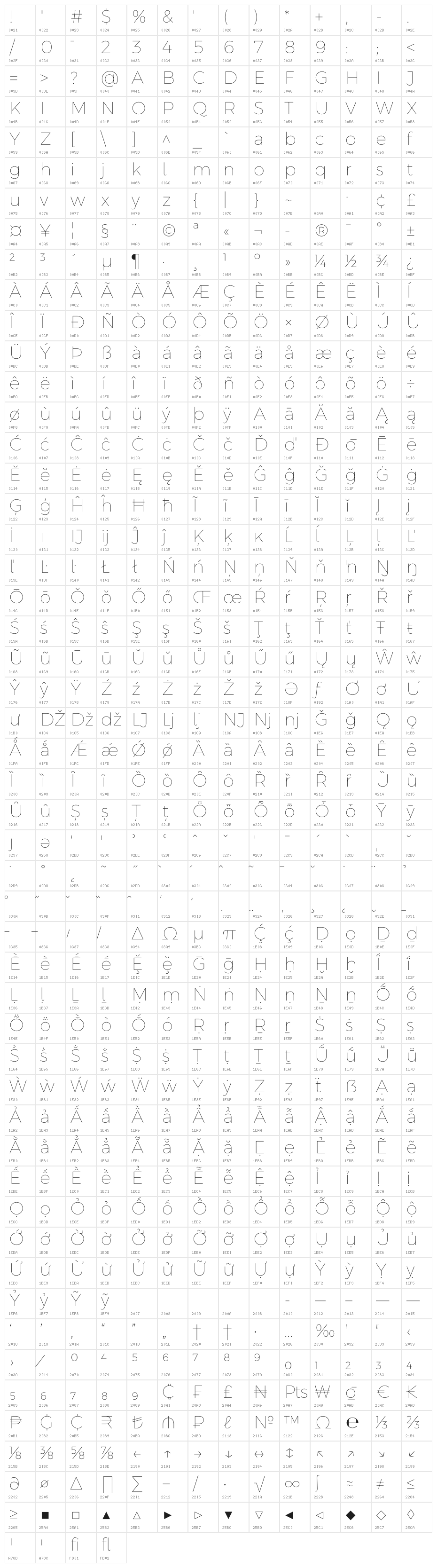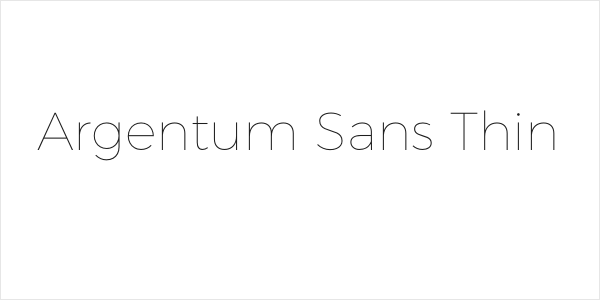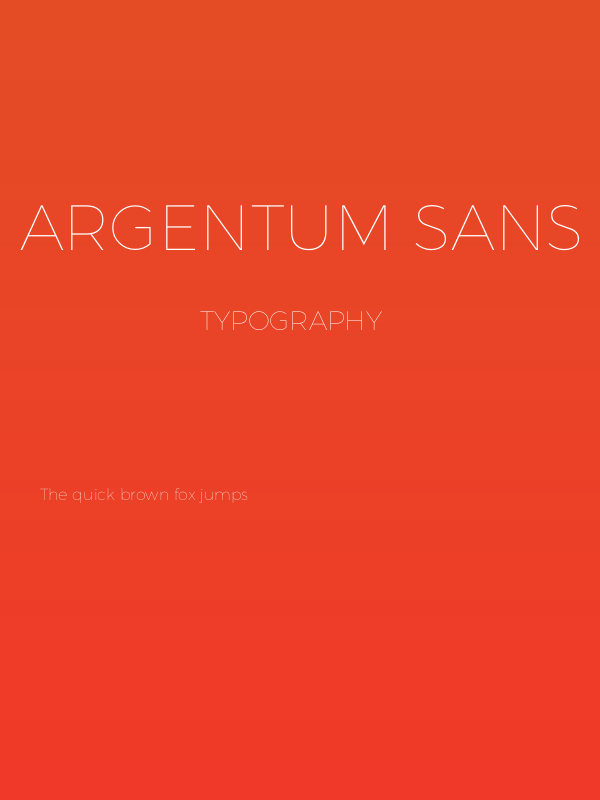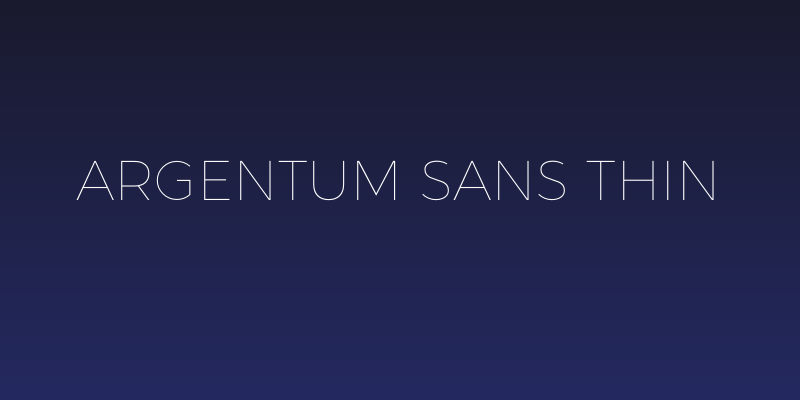
Argentum Sans Thin Font
Argentum Sans Thin Description
This font features a clean and minimalist design with thin, uniform strokes that create an elegant and modern appearance. The characters are well-proportioned, with a geometric influence that is evident in the precise curves and straight lines. The uppercase and lowercase letters maintain a consistent style, contributing to a cohesive look. The numerals are clear and easy to read, while the special characters blend seamlessly with the overall aesthetic. This font's simplicity and clarity make it versatile for various design applications.